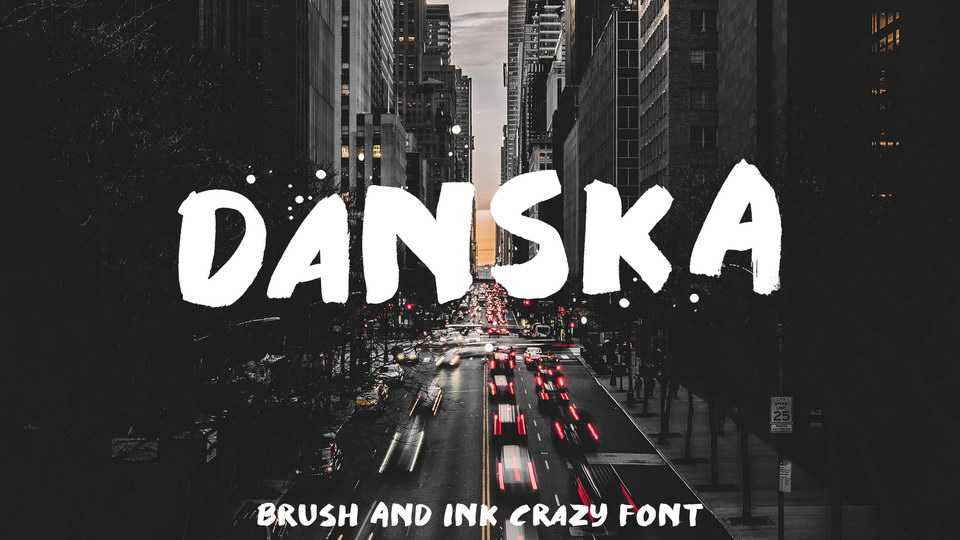
Download Danska font, a bold hand painted brush and ink crazy script with a natural texture. Danska font looks great for headlines, posters, packaging, apparel, social media and more.
Designer: The Trending Fonts